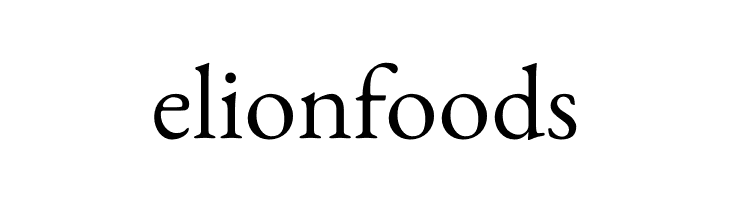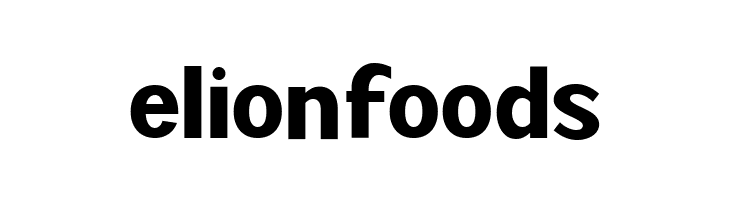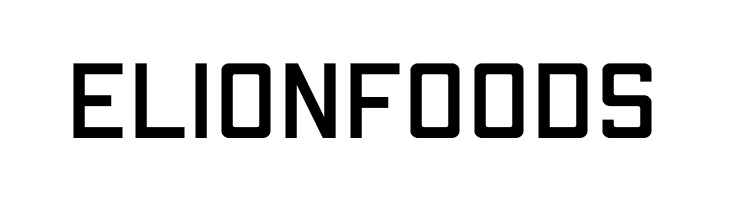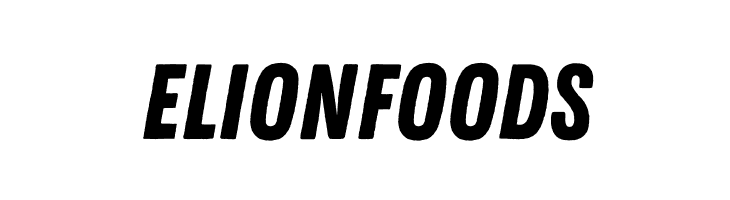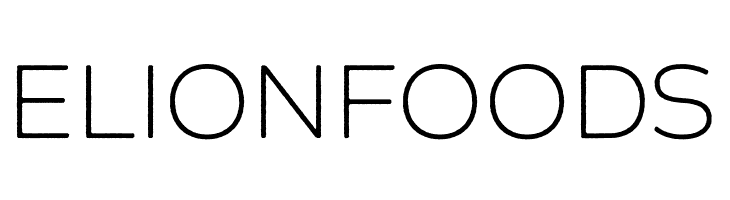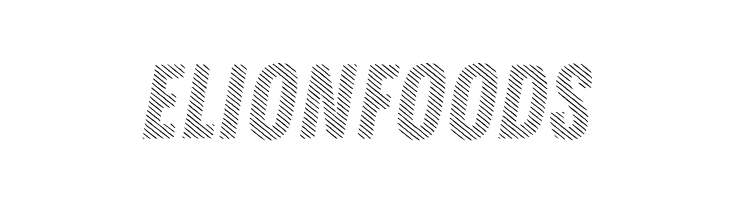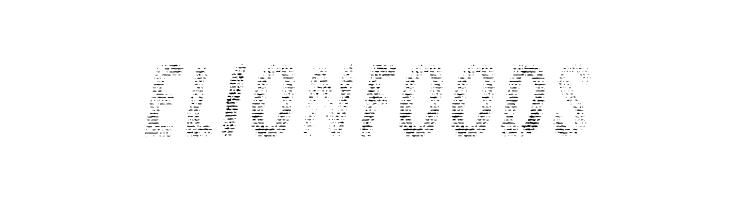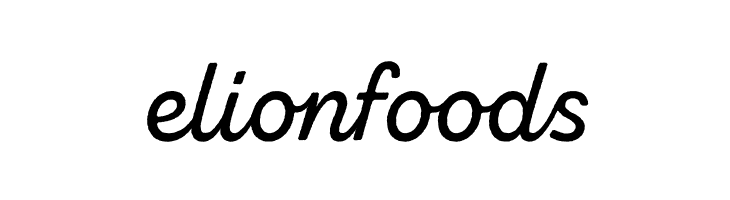
A classic serif typeface with elegant lines and moderate contrast.
A bold, geometric sans-serif font with a modern, industrial style.
A modern, geometric, and condensed font with a sleek and professional appearance.
A bold, extended font with geometric shapes and uniform strokes, ideal for impactful designs.
A bold, modern font with a slightly condensed width and strong presence.
A modern, light sans-serif font with clean lines and balanced spacing.
A bold, textured font with diagonal lines for a dynamic, modern look.
A modern, textured font with horizontal lines and a slight slant.
A semi-bold, slanted script font with a modern, handwritten style.